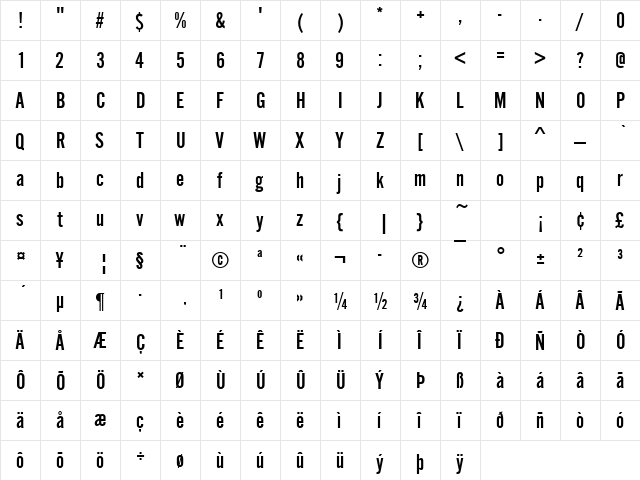
Alternate Becker 2 Regular
Design Context for Alternate Becker 2 Typeface
Alternate Becker 2 offers clean, dependable letterforms without strong stylistic allegiance, making it a practical choice for designers who need flexibility.